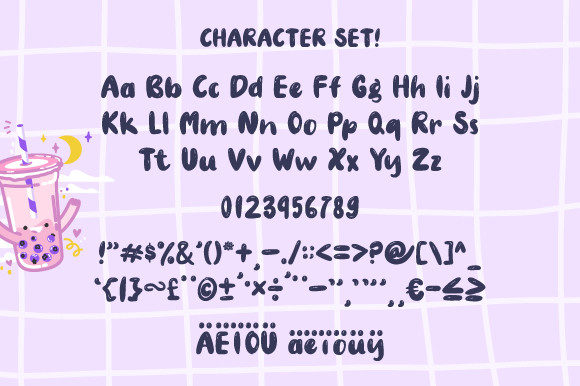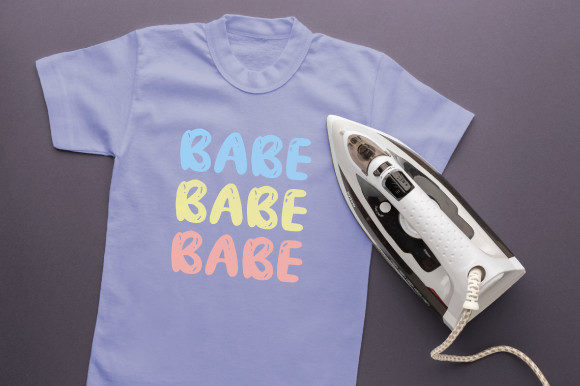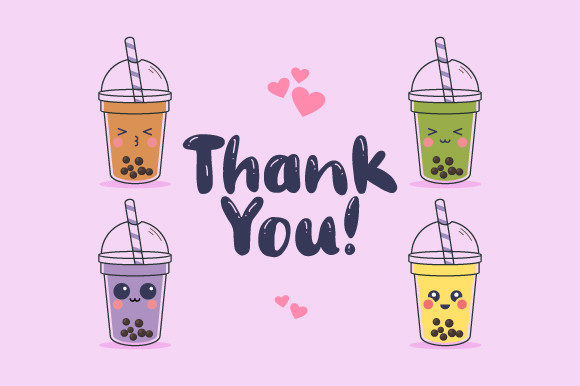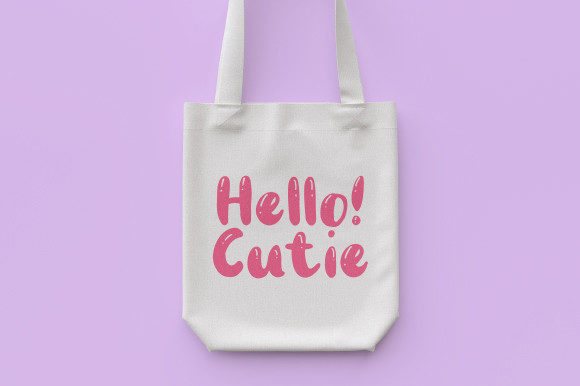
Unlock the Magic of Bubble Stick Font
Imagine you’re brainstorming ideas for a new branding project, and suddenly, a burst of creativity hits you. You see a colorful, bubbly font dancing in your mind’s eye, begging to be brought to life. This is the moment when inspiration strikes, and the perfect font can make all the difference. For designers, finding the right font can be a game-changer – it’s the key to creating a visual identity that truly stands out.
Enter Bubble Stick Font, a cool and bubbly display font designed to add a touch of whimsy to any project. Whether you’re working on a logo, t-shirt design, or creative product, this font is sure to bring a smile to your customers’ faces. With its playful, hand-drawn feel, Bubble Stick Font is the perfect choice for designers looking to add some personality to their work.
Bubble Stick Font Key Features
- Font Family: Bubble Stick Font is a unique, handwritten font designed to resemble a child’s bubble writing.
- Unique Characteristics: The font features irregular, bubbly letterforms, with varying line widths and organic shapes, giving it a playful, hand-drawn feel.
- Character Set: Includes a comprehensive set of characters, including uppercase and lowercase letters, numbers, punctuation marks, and special characters.
Bubble Stick Font Review
Overall, I think the Bubble Stick Font has some great qualities, but also some areas that need improvement. Let’s start with the good stuff ✨.
- Unique and playful style that’s perfect for creative projects
- Works well for titles, headings, and short blocks of text
- Easy to read and understand, even at small font sizes
However, there are some limitations to consider ⚠️.
- Lack of variation in letter spacing and kerning, which can make text look a bit stiff
- May not be suitable for large blocks of text, as it can be hard to read and tiresome to look at
- Some characters, like the ‘i’ and ‘l’, can be difficult to distinguish at small font sizes
Overall, I think the Bubble Stick Font is a great choice for projects that need a fun and playful touch. It’s perfect for titles, headings, and short blocks of text. However, it may not be the best choice for large blocks of text or projects that require a high level of readability.
Tips for Getting the Most Out of Bubble Stick Font
Use the font in combination with bright colors and bold backgrounds to create a playful and eye-catching effect.
Experiment with different font sizes and styles to create a layered, 3D appearance.
Use the font to create fun and whimsical titles, headings, and quotes.
Bubble Stick Font is ideal for:
Children’s book illustrations and designs.
Social media graphics and ads.
Party and event invitations.
Playful and fun marketing materials.
Alternatives to Bubble Stick Font
Comic Sans MS is a casual, handwritten font often used in informal contexts such as advertisements, children’s books, and social media. It is more playful than Bubble Stick Font and can add a friendly tone to your design. However, it may be perceived as less professional.
Great Vibes is a modern, handwritten font with a more elegant and sophisticated feel than Bubble Stick Font. It is suitable for use in branding, advertising, and editorial design where a touch of personality is desired. Great Vibes has a more refined look than Bubble Stick Font, making it a better choice for high-end designs.
Carolyna Pro is a modern, handwritten font with a touch of sophistication and elegance. It is suitable for use in branding, advertising, and editorial design where a unique and personalized look is desired. Carolyna Pro is more versatile than Bubble Stick Font and can be used in a wide range of contexts, from fashion to technology.